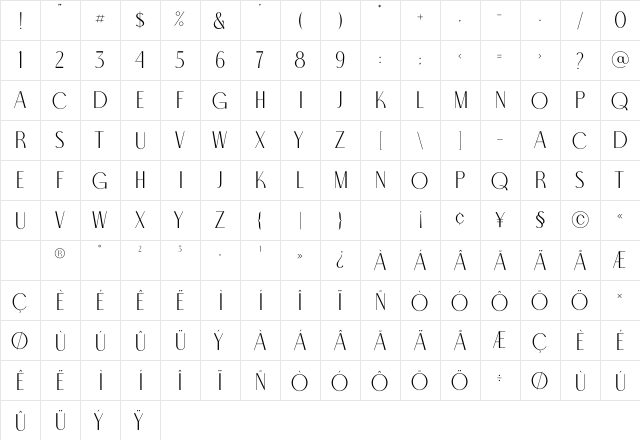
North Carossela Regular
| Foundry | Brandsemut |
| Designer | Ahmad Sidiq |
Design Context for North Carossela Typeface
North Carossela takes a measured approach to typography — its balanced proportions and neutral character make it a reliable workhorse for both digital and print work.